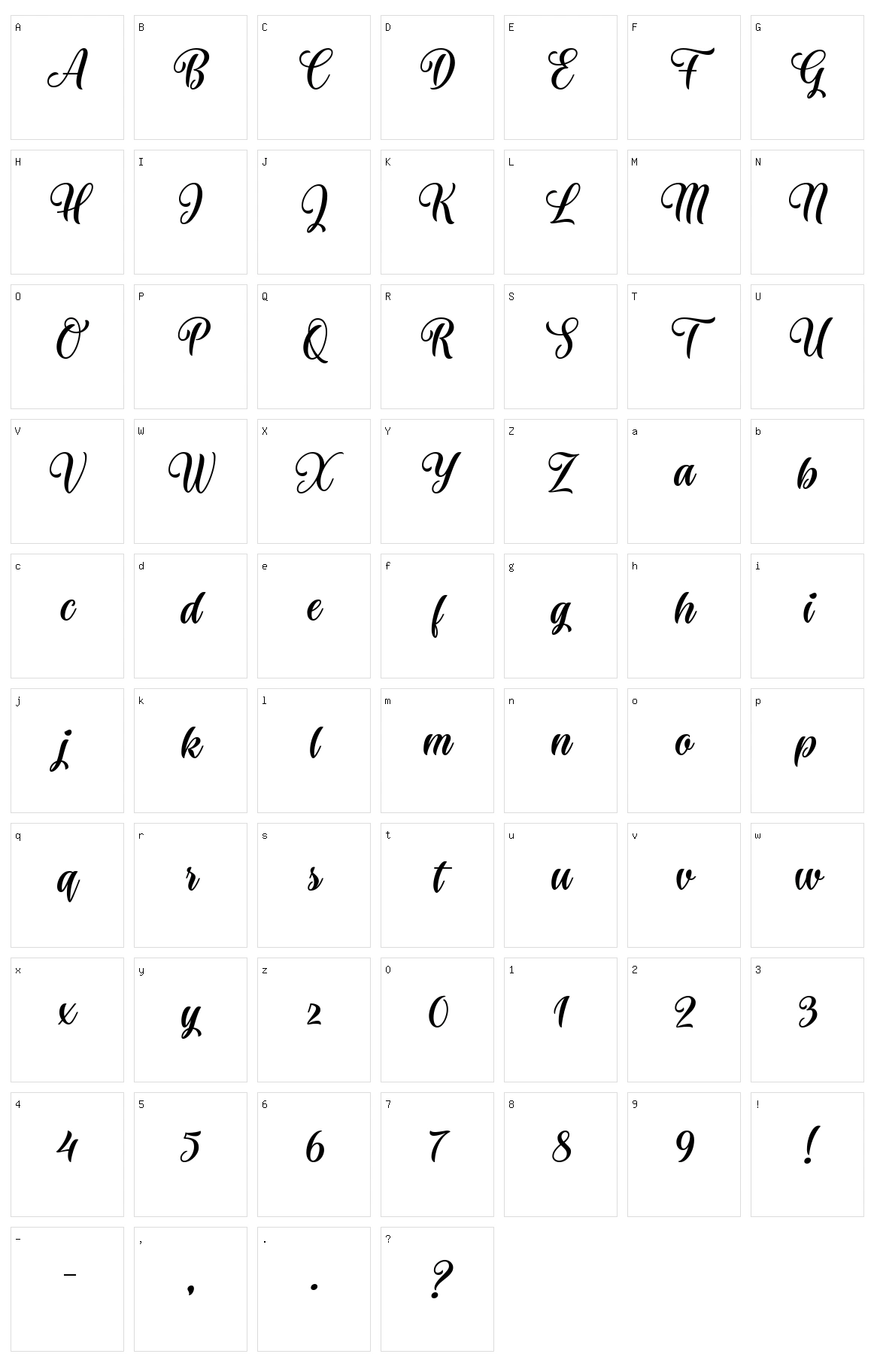
The free font The Mumbai Sticker is carefully designed by Roland Huse Design, showcasing a thoughtful balance of creativity and usability and falls under the Script font style. When you download the ZIP file, it contains only 1194.73 KB of font files, making it lightweight and quick to download. Please review the license details below to understand permitted usage and distribution rights. If license information is not available, we recommend using this font for personal projects only or contacting the author directly for commercial usage permissions.